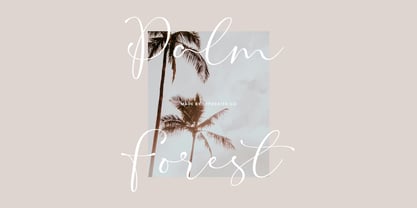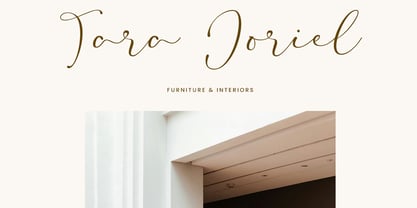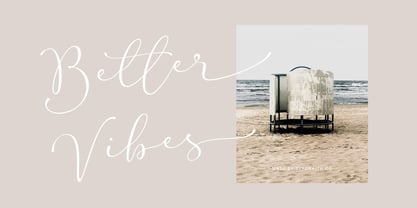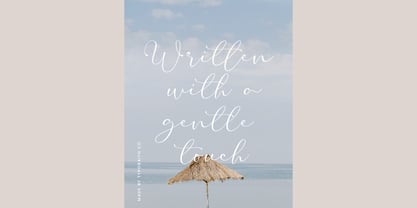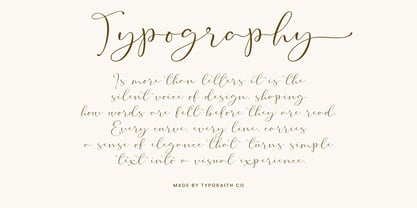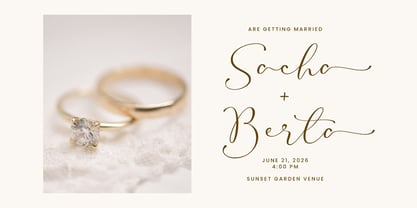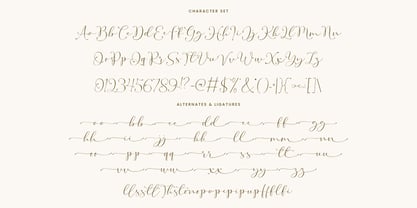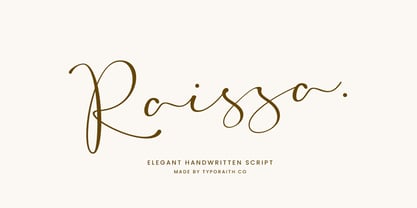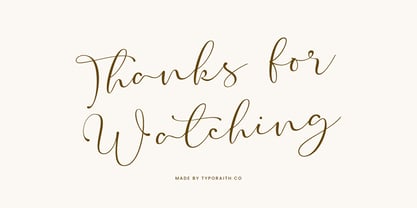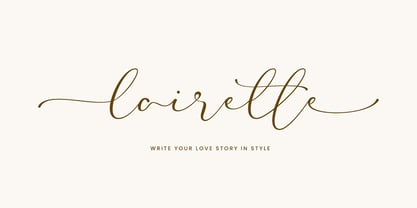
Raissa
The Raissa Font Family was designed by Rendy Riyananda and published by Typoraith Co. Raissa contains 1 styles. More about this family
Raisa is a beautifully crafted handwritten script font that blends elegance with a modern, natural flow. Designed with smooth curves and graceful strokes, it delivers a luxurious and personal touch to any design project.
Each letter is thoughtfully created to mimic authentic handwriting, enhanced with stylish swashes and fluid connections—making your text feel warm, refined, and effortlessly sophisticated.
Perfect for:
- Wedding invitations & stationery
- Branding and logo design
- Social media posts
- Packaging (fashion, beauty, boutique)
- Quotes and signature-style text
- Photography watermark
Features:
- Elegant handwritten script style
- Smooth and natural letter flow
- Beautiful ligatures and Alternates
- Uppercase & lowercase characters
- Punctuation & multilingual support
Raisa is the perfect choice for designers looking to add a feminine, classy, and modern touch to their work.